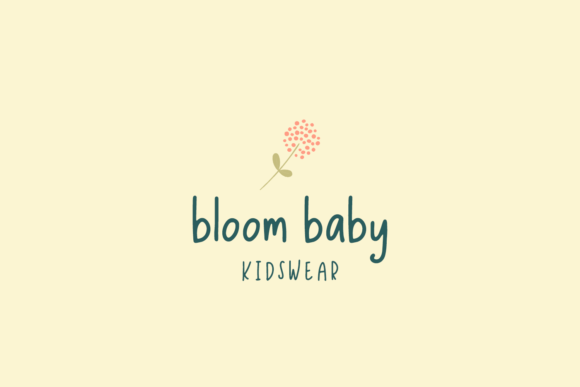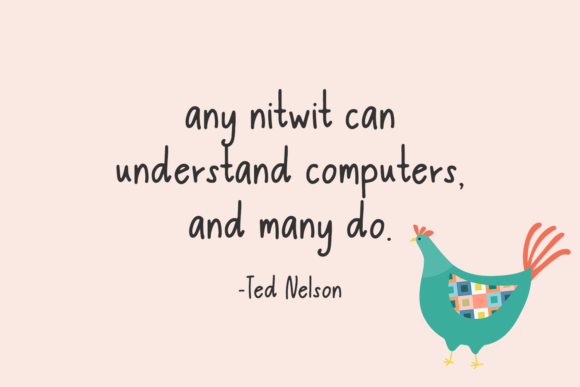
Nitwit Sans Font
db-ku.com - Script & Handwritten -- Nitwit Sans is a crafty little font great for kid projects. Nitwit Sans is best for crafting projects, header elements that need a handwritten touch, quote graphics for social media, children’s books, t-shirts, and more.